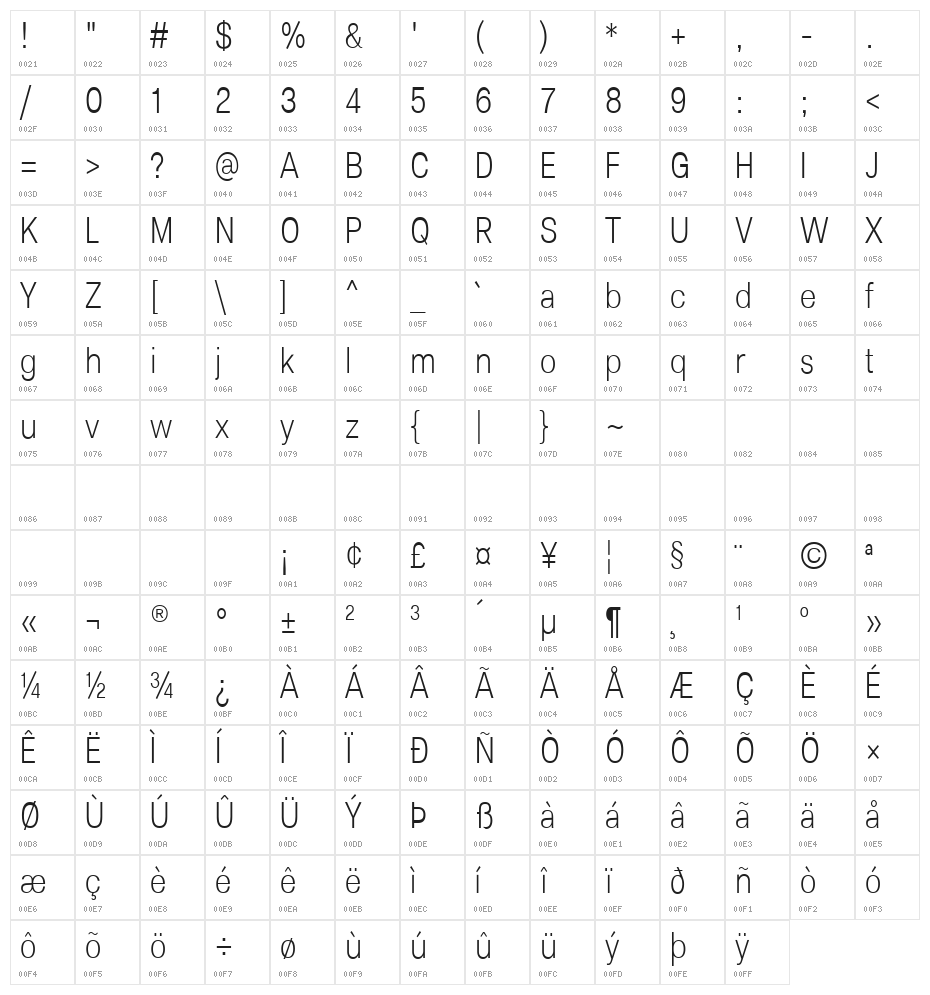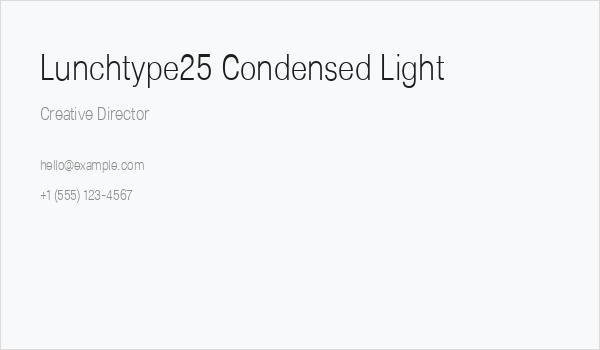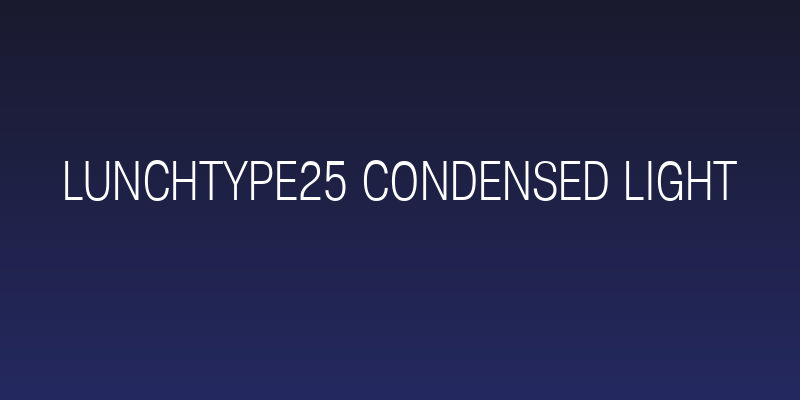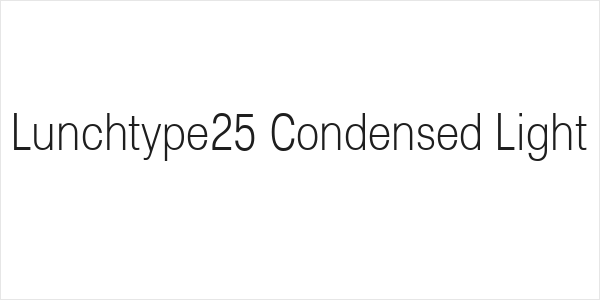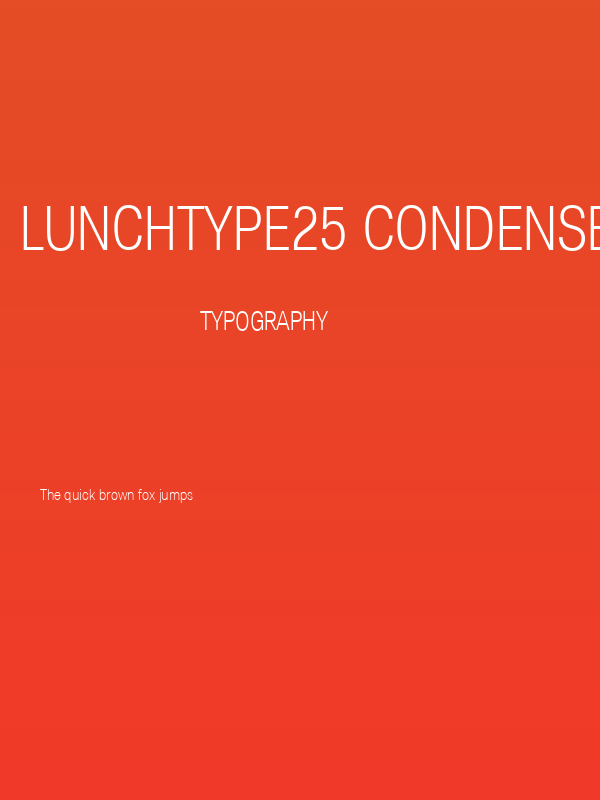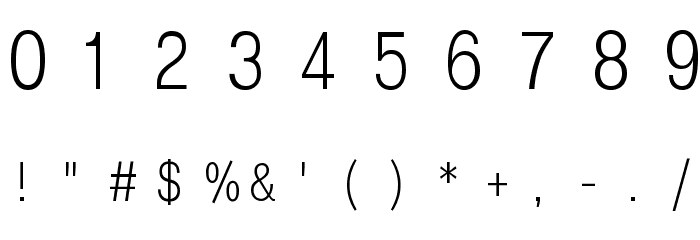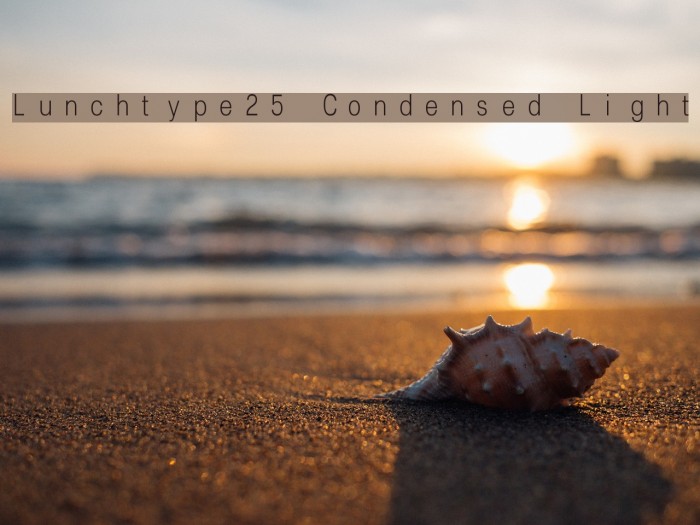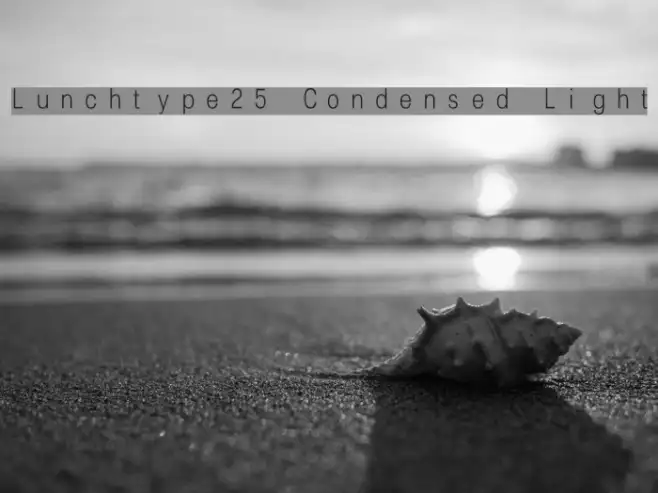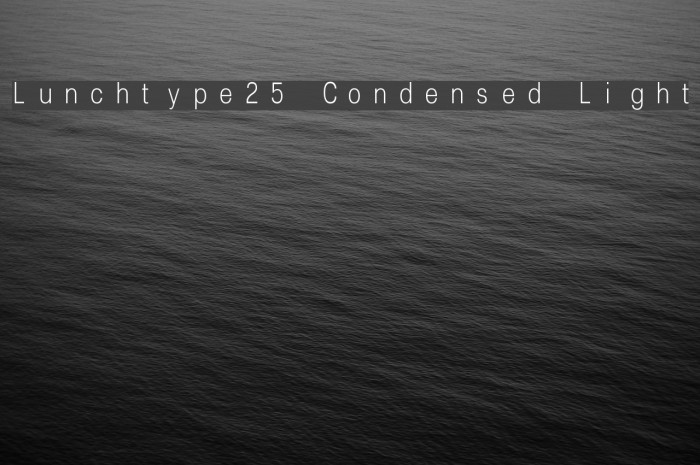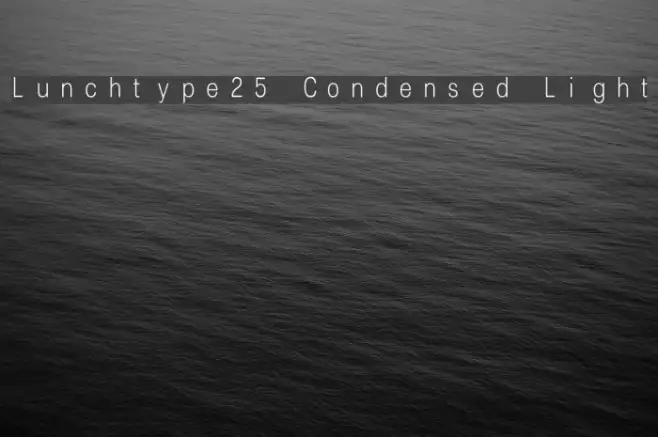
Lunchtype25 Condensed Light Font
Lunchtype25 Condensed Light Description
This font presents a clean and modern aesthetic with its condensed and light structure. The characters are uniformly thin, offering a sleek and minimalist appearance. The uppercase and lowercase letters maintain a consistent height and width, contributing to a harmonious and balanced look. The numerals are straightforward and align well with the overall design, ensuring readability. Special characters are crafted with precision, enhancing the font's versatility. This typeface is ideal for projects that require a contemporary and uncluttered feel, making it suitable for both digital and print media.
| Proposed Projects | Ideal for branding, editorial design, websites, and minimalist posters. |